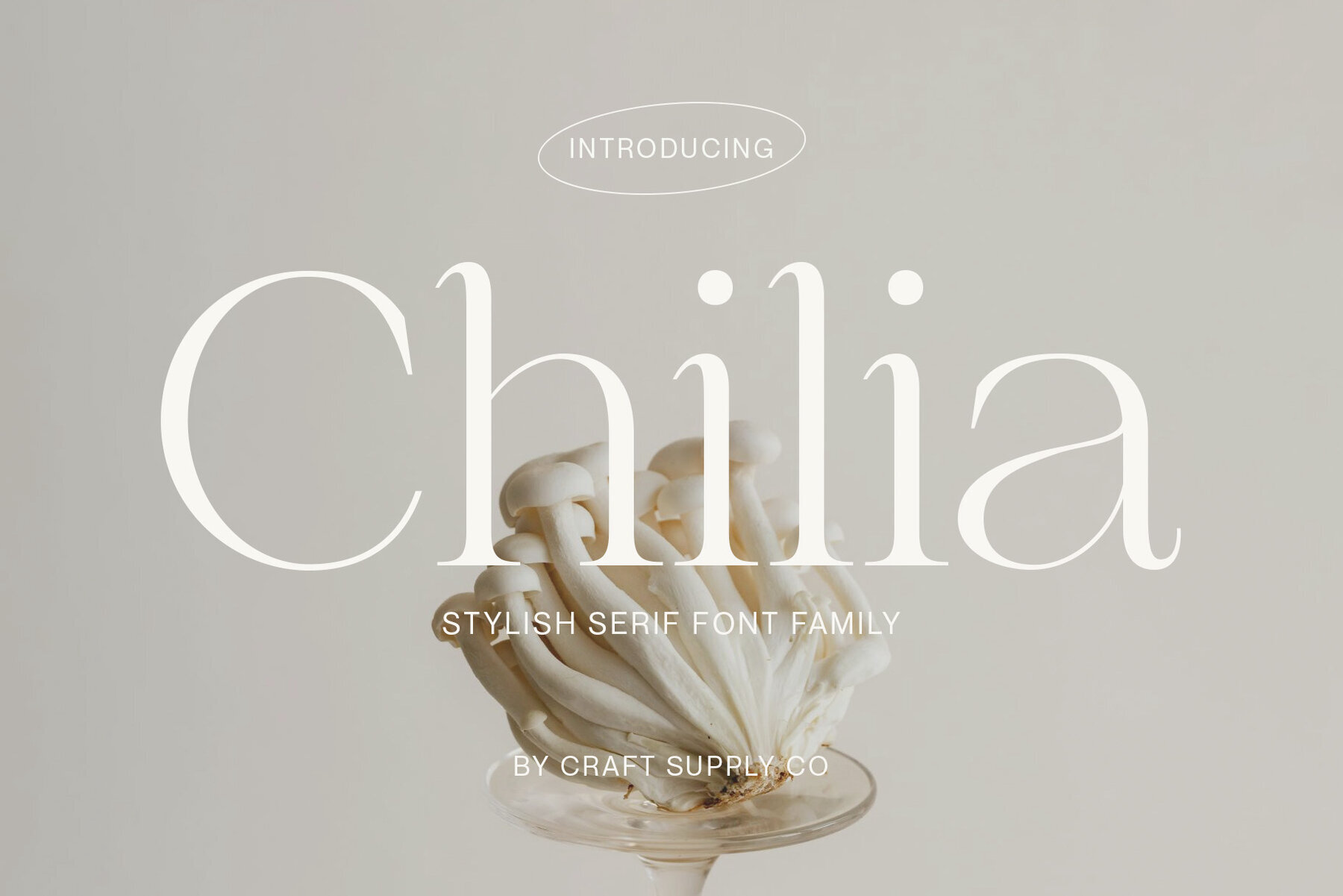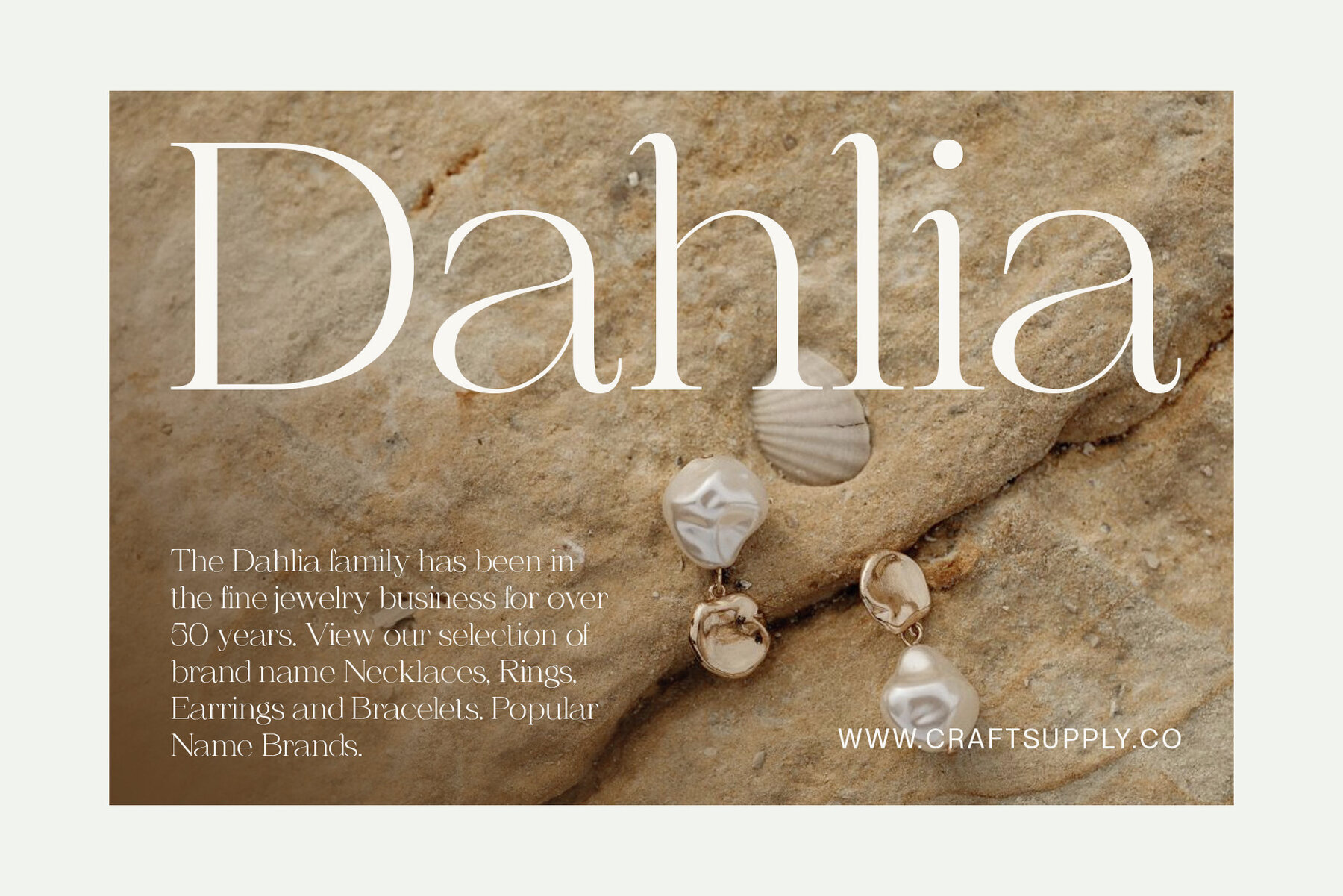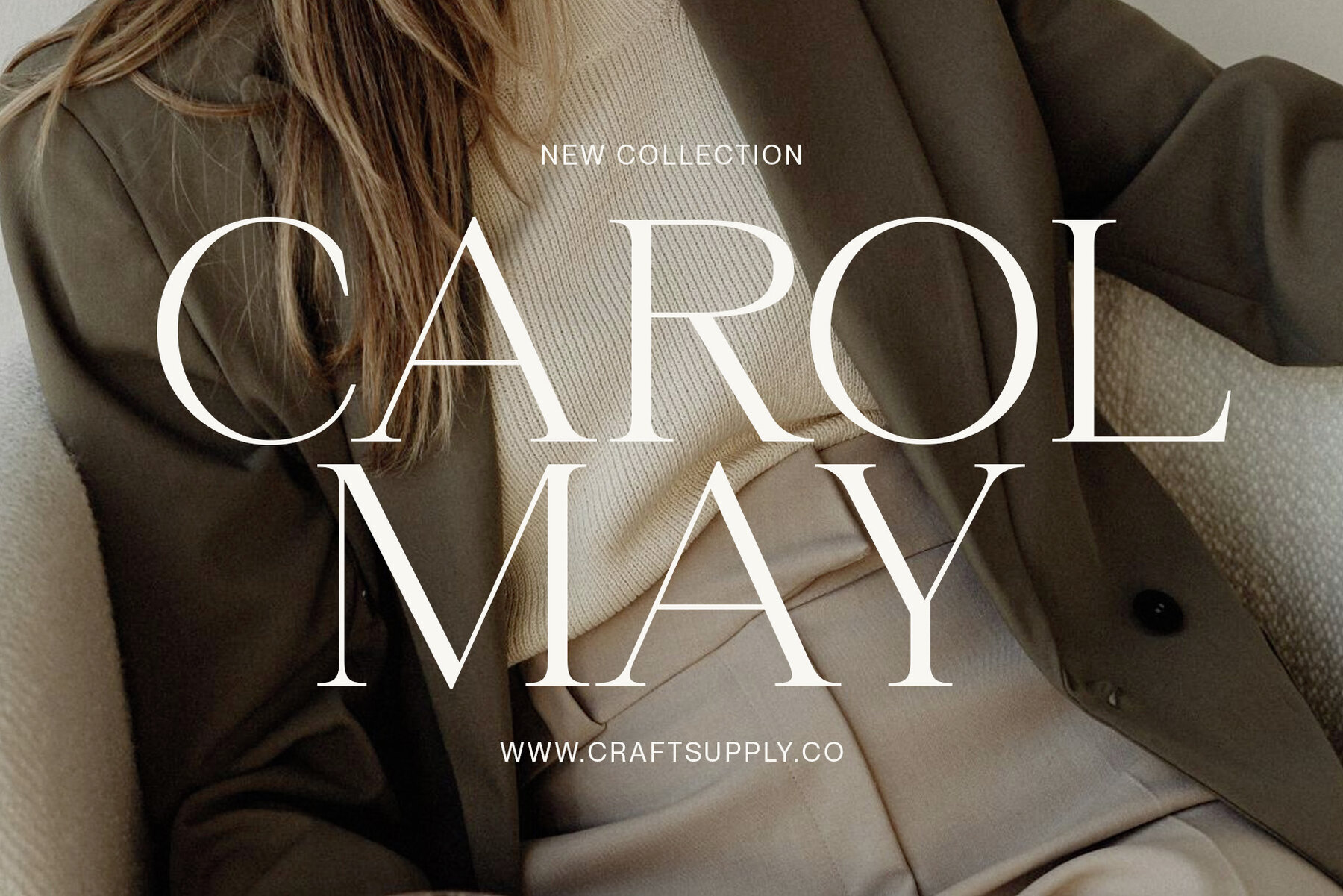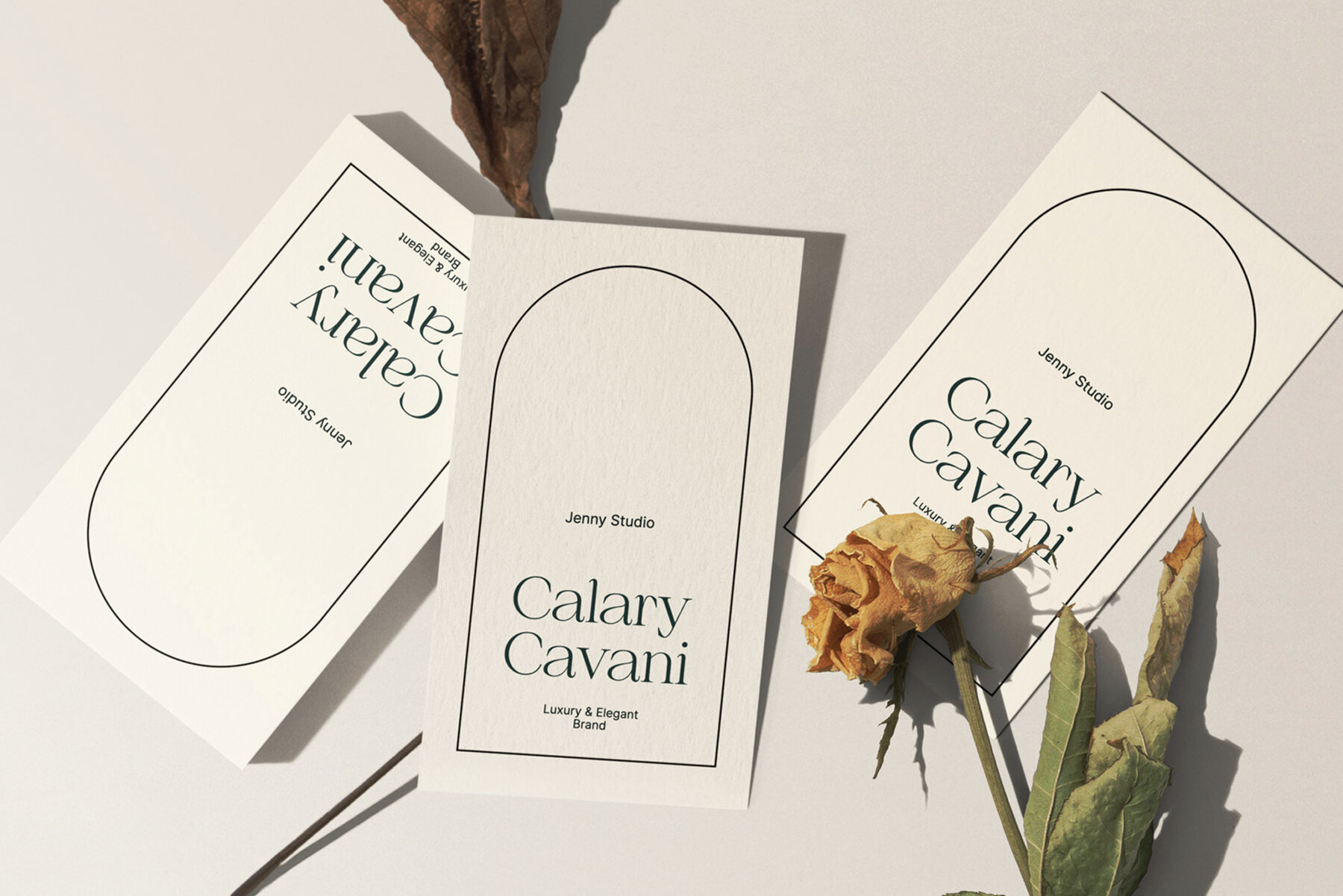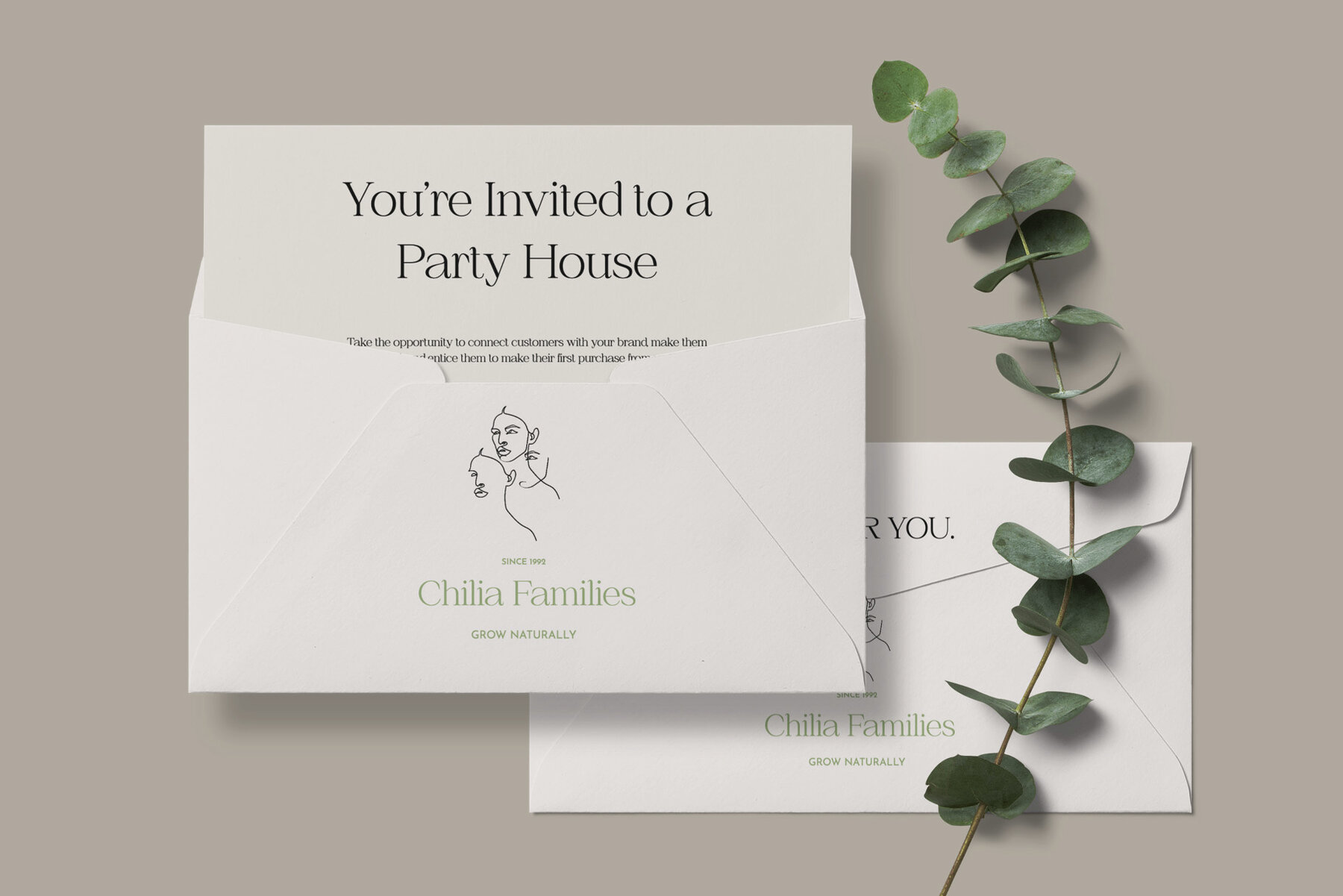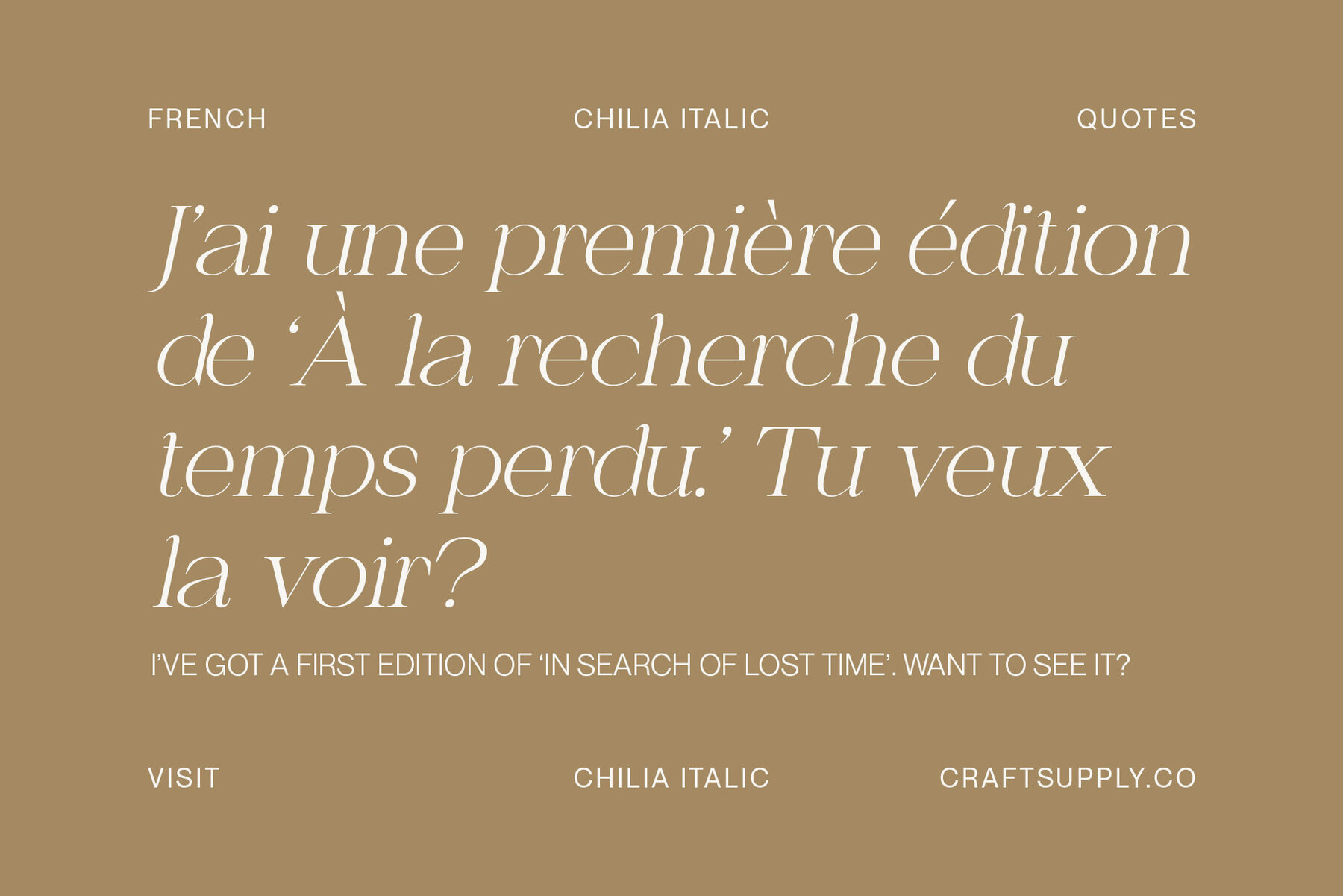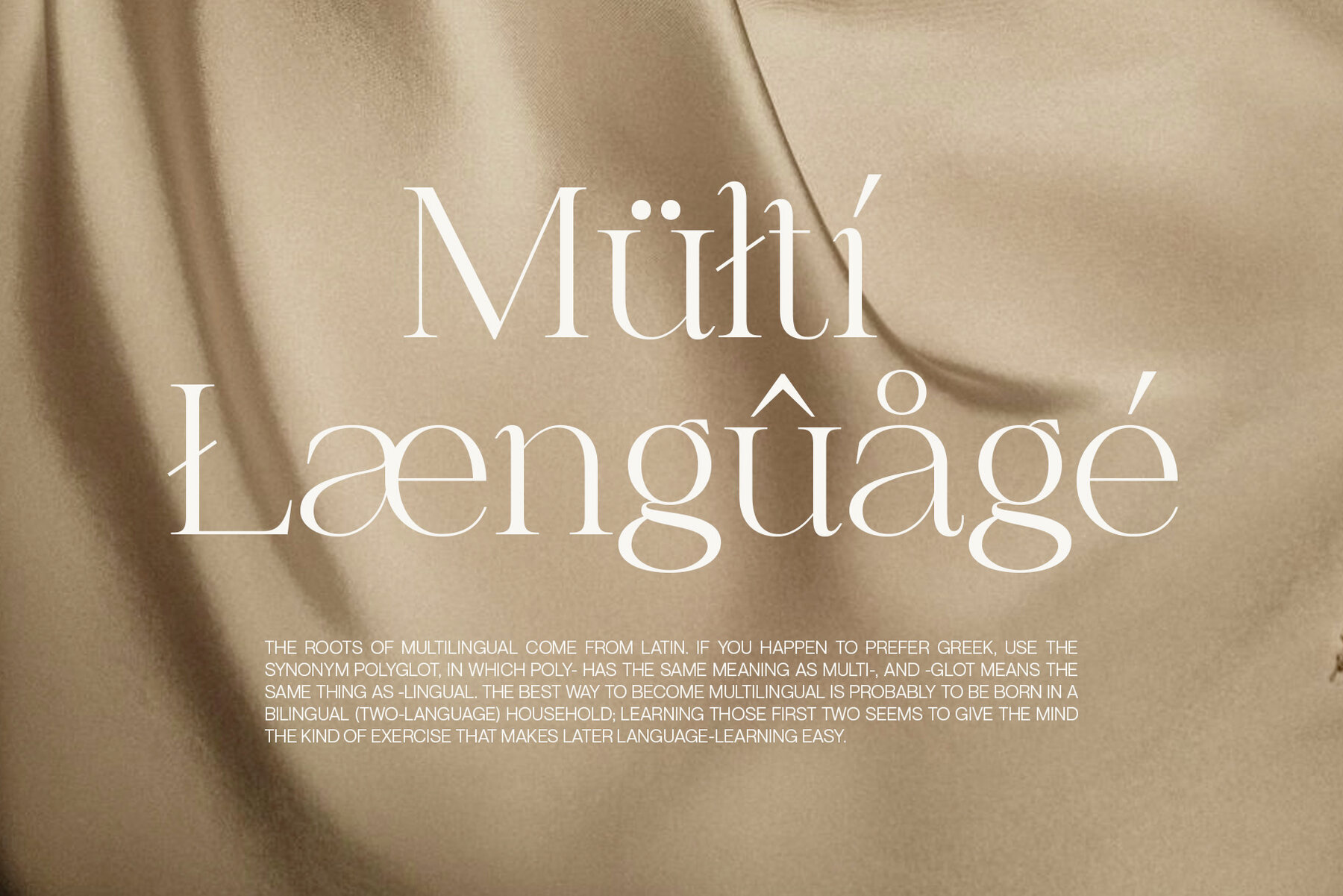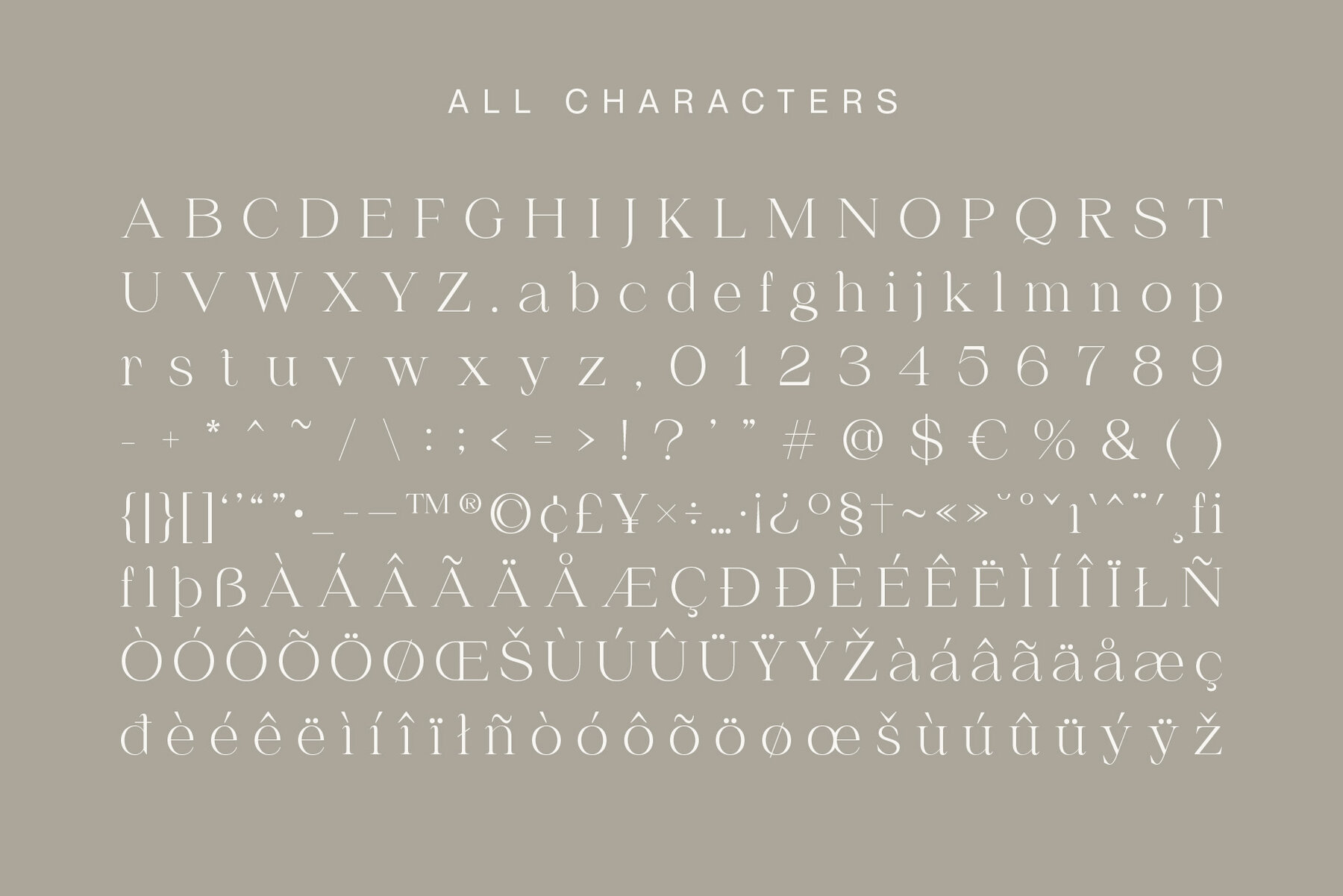
Chilia Font
Chilia is a stylish serif font that combines contemporary upper serifs with a feminine allure, making it perfect for beauty and display purposes. Its unique blend of modern and elegant features adds a touch of sophistication, making it ideal for displays that demand attention. This typeface is perfect for a variety of projects, including greeting cards, packaging, brand identity, and posters. It enhances any design project with its trendy and eye-catching appeal. Feel free to explore its creative potential! No special software is required to use this typeface. Please contact us if you have any questions. Enjoy crafting, and thank you for supporting us!Chilia: Elegant Serif with a Modern Twist